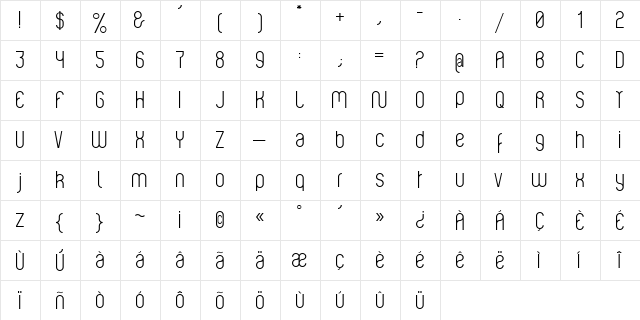
Violette Violette
| Designer | Benoit Sjoholm |
Design Context for Violette Typeface
Violette is a composed and adaptable typeface that performs quietly and consistently across a wide range of design contexts.